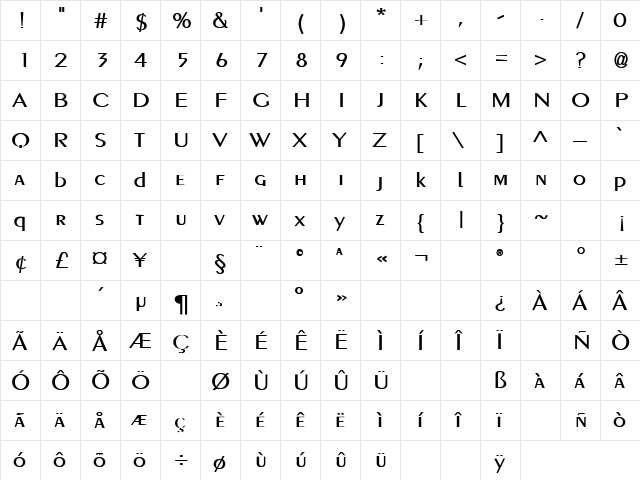
Custard Pie 13 Bold
Design Context for Custard Pie 13 Typeface
Custard Pie 13 takes a measured approach to typography — its balanced proportions and neutral character make it a reliable workhorse for both digital and print work. The heavy weight commands attention and anchors typographic hierarchies.